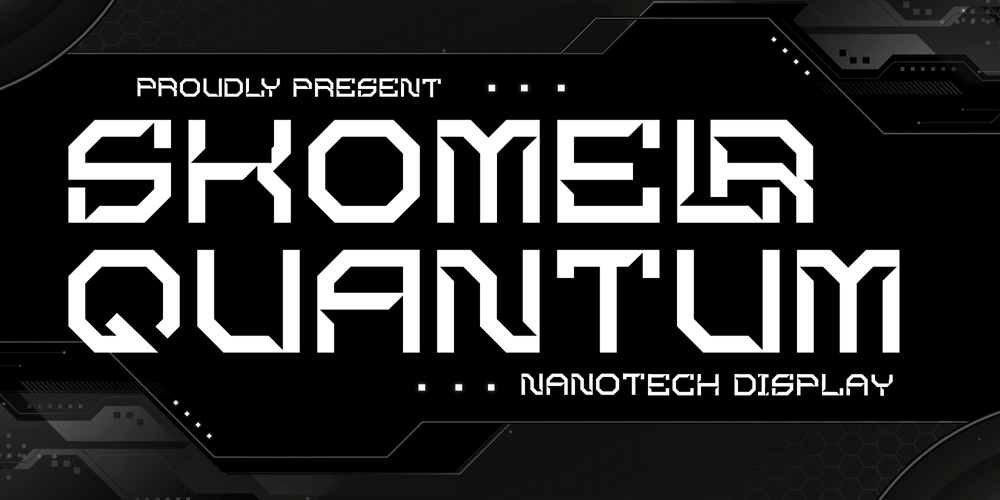
Skomelr Quantum Font Family was designed by Heru Utama Putra and published by Letterena Studios. Skomelr Quantum contains 1 styles and family package options. Skomelr Quantum is a futuristic and modern serif typeface. It is suitable for logotypes, headlines, corporate identity, brand identity, apparel industry, posters, music, movies, games, magazines or any of your creative design projects.